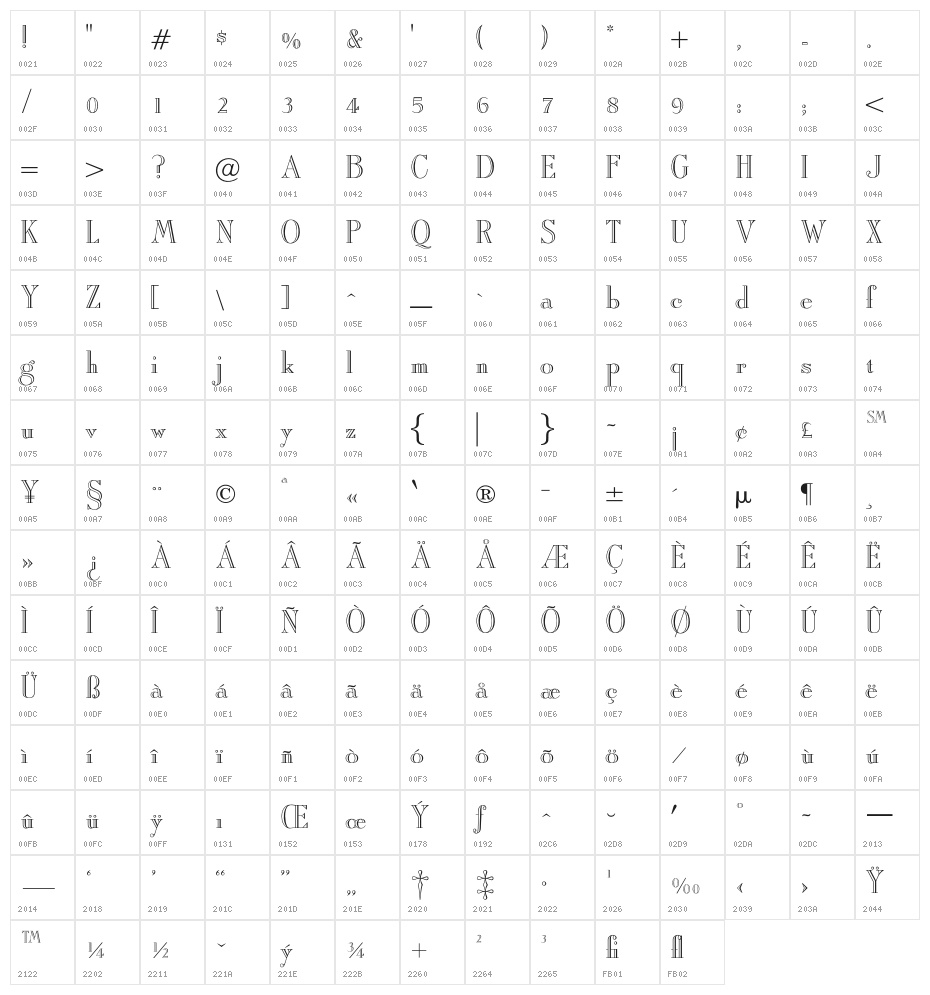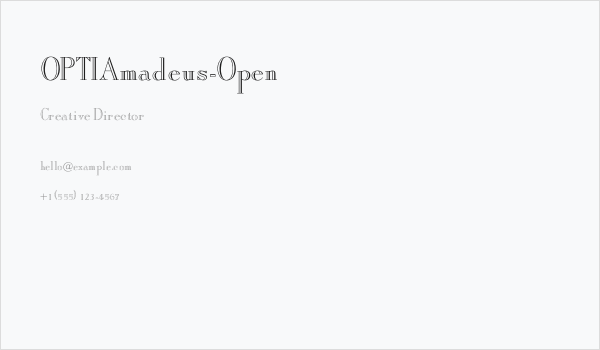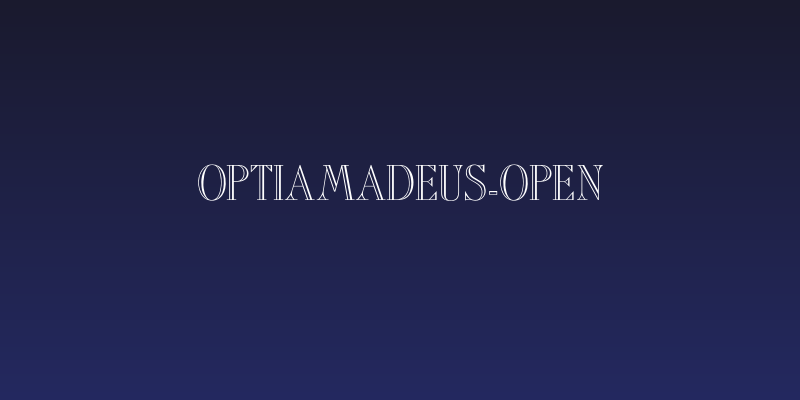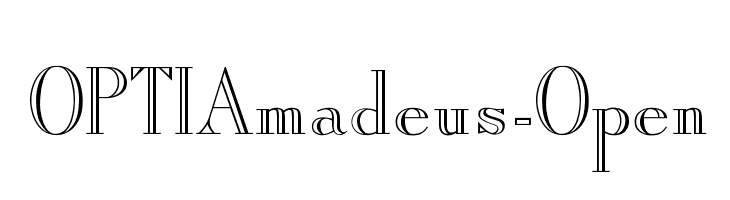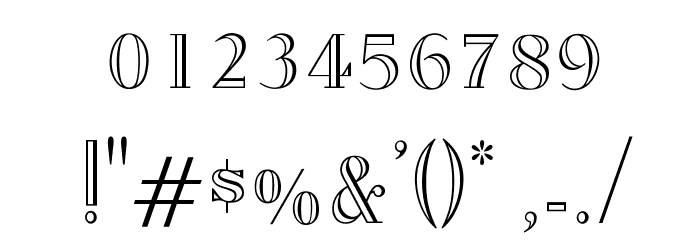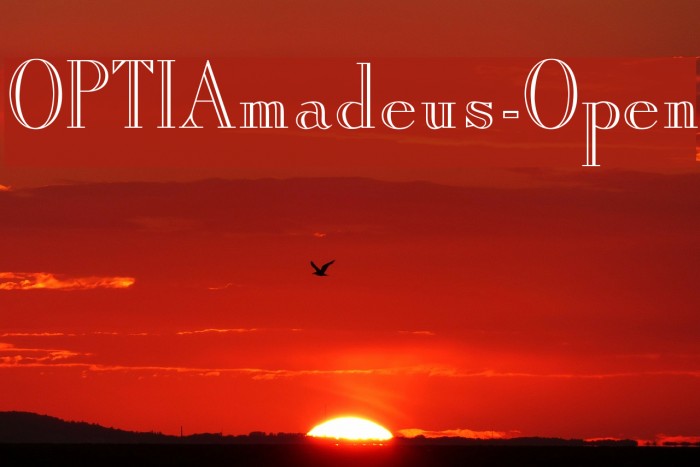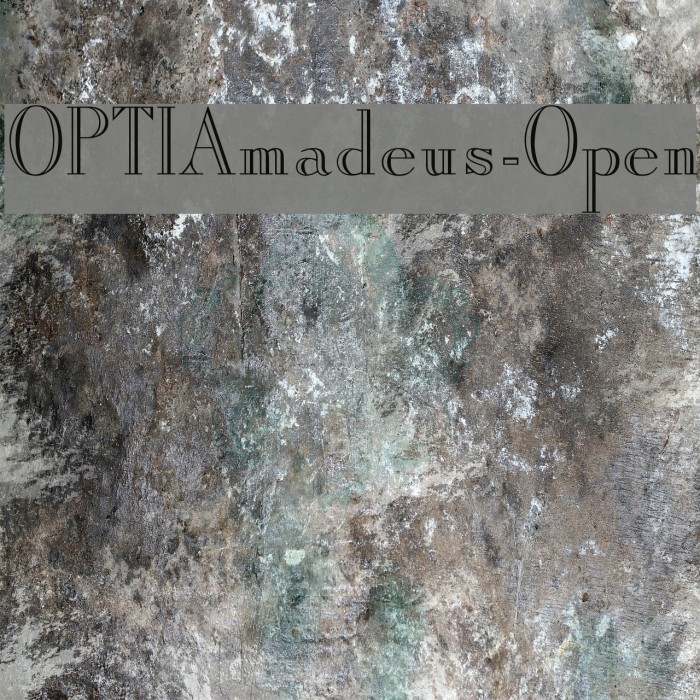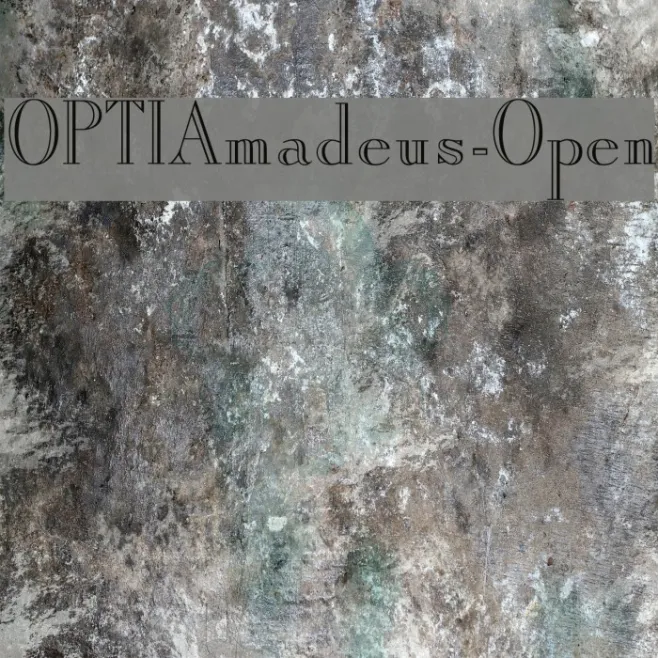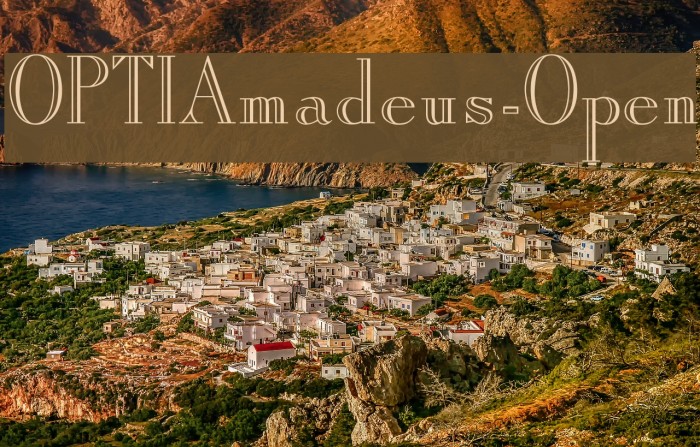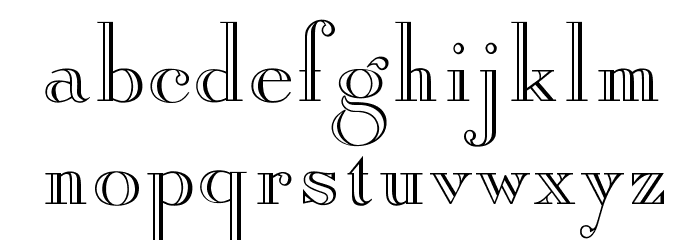
OPTIAmadeus-Open Font
OPTIAmadeus-Open Description
This font features a distinct and elegant design, characterized by its thin, elongated serifs and high contrast between thick and thin strokes. The uppercase letters exhibit a classic and sophisticated style, with sharp angles and a refined appearance. The lowercase letters maintain a consistent aesthetic, with unique flourishes on characters like 'g' and 'y' that add a touch of whimsy. The numerals are clear and legible, with a traditional feel that complements the overall design. Special characters are thoughtfully crafted, maintaining the font's elegant and decorative nature.
| Proposed Projects | Ideal for luxury branding, wedding invitations, editorial design, and high-end product packaging. |